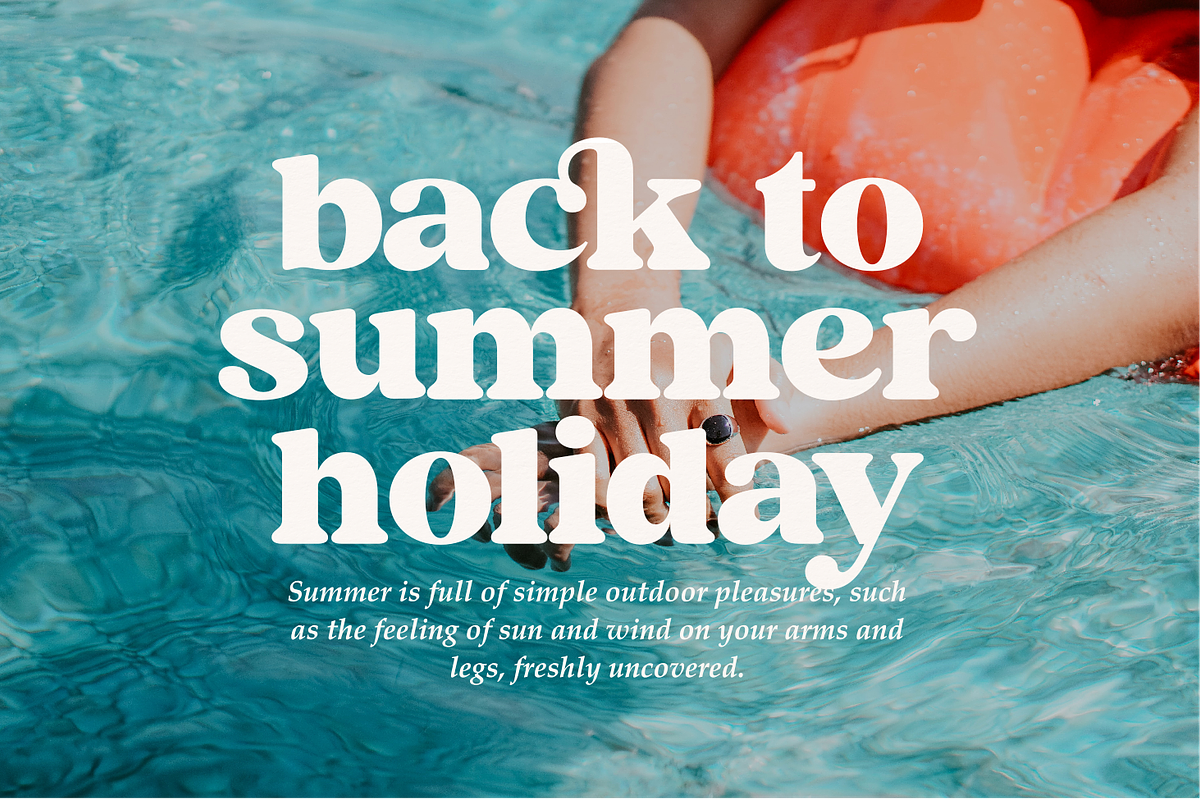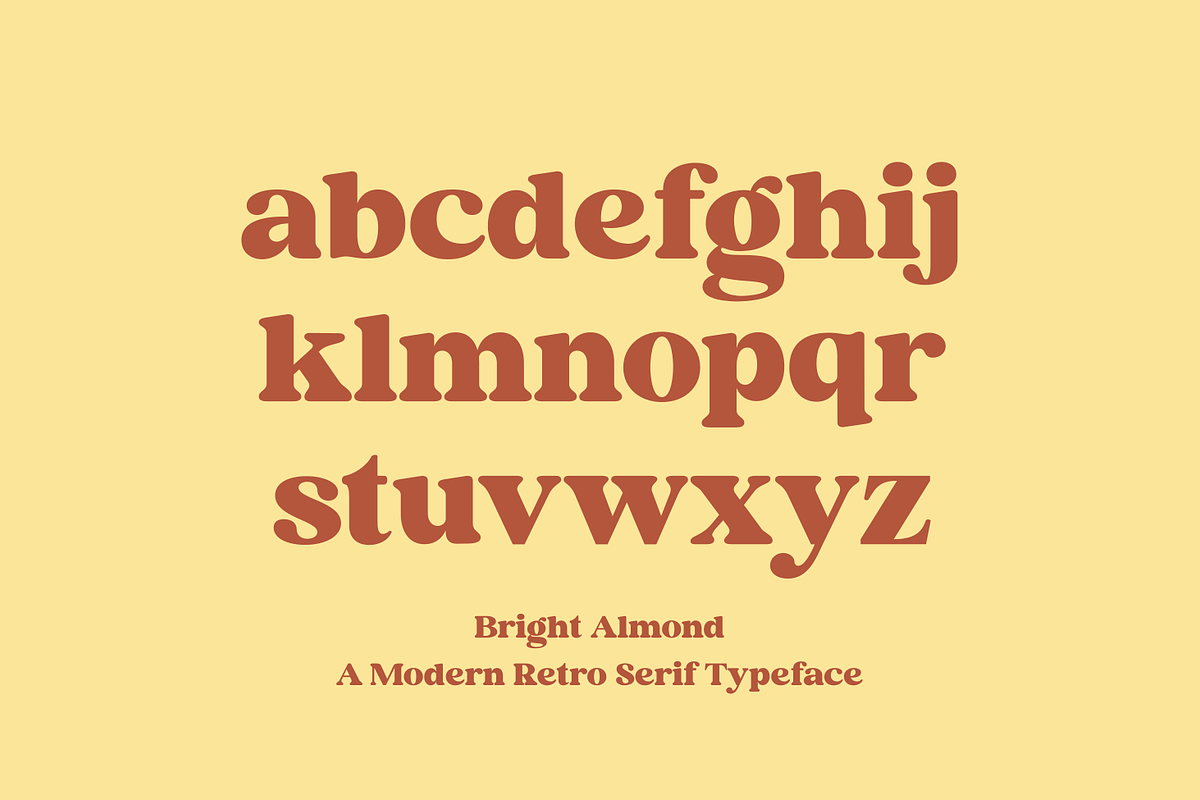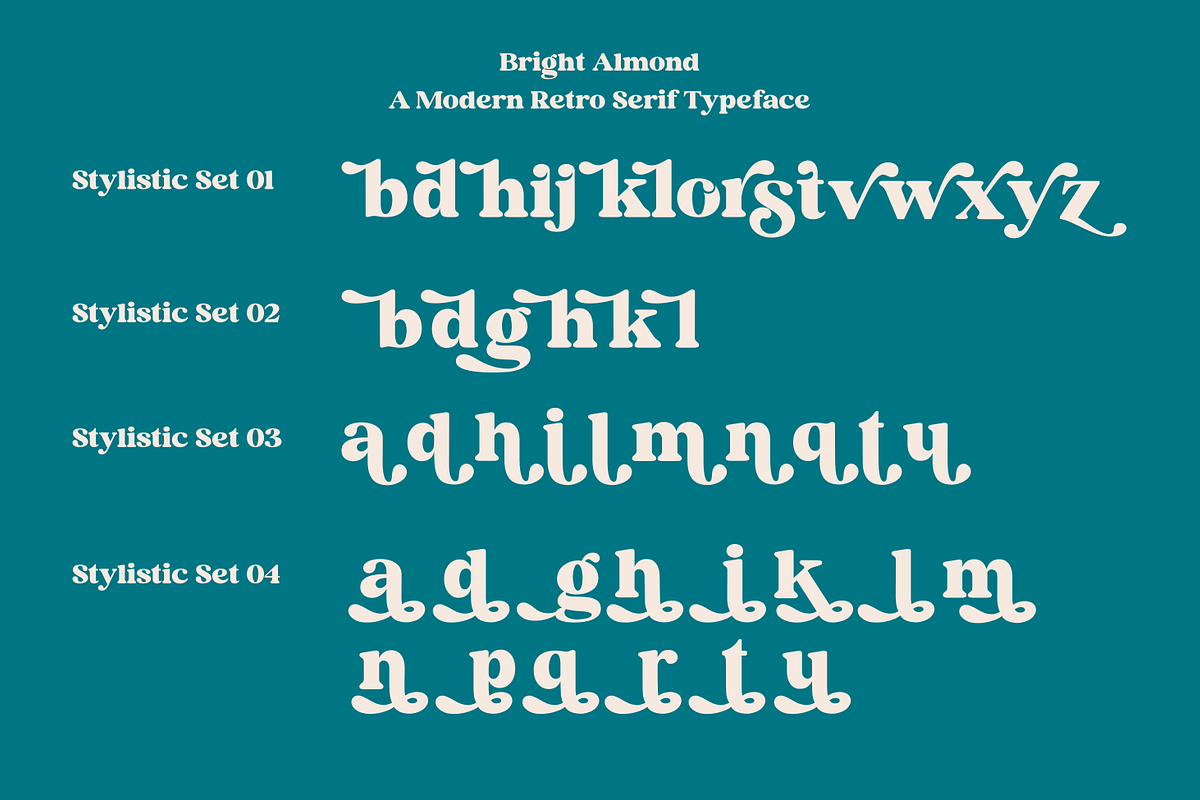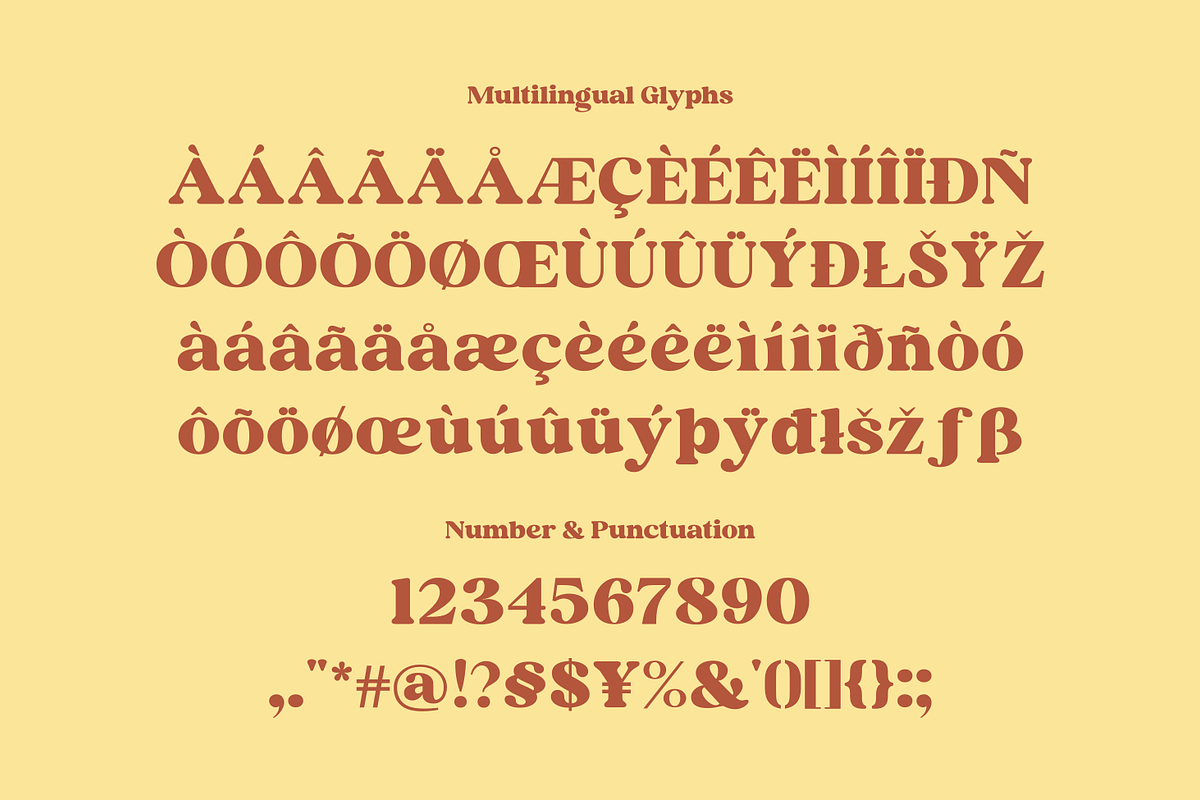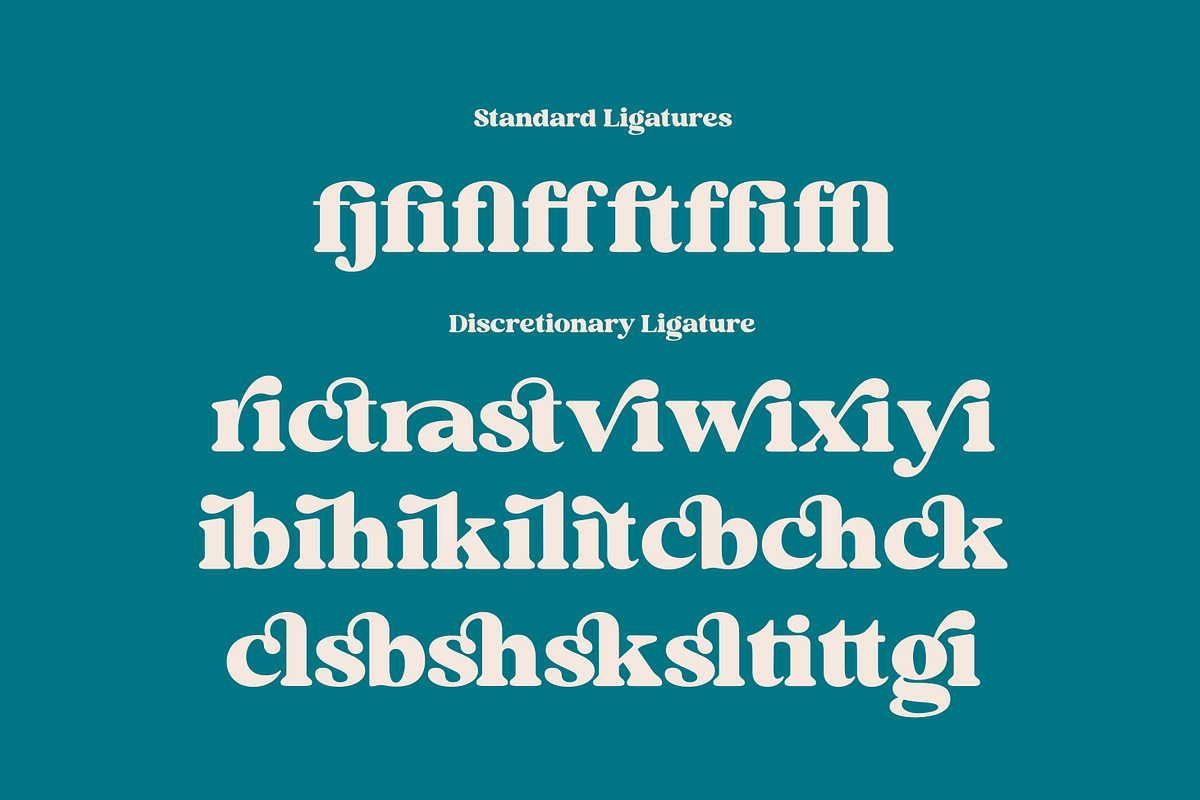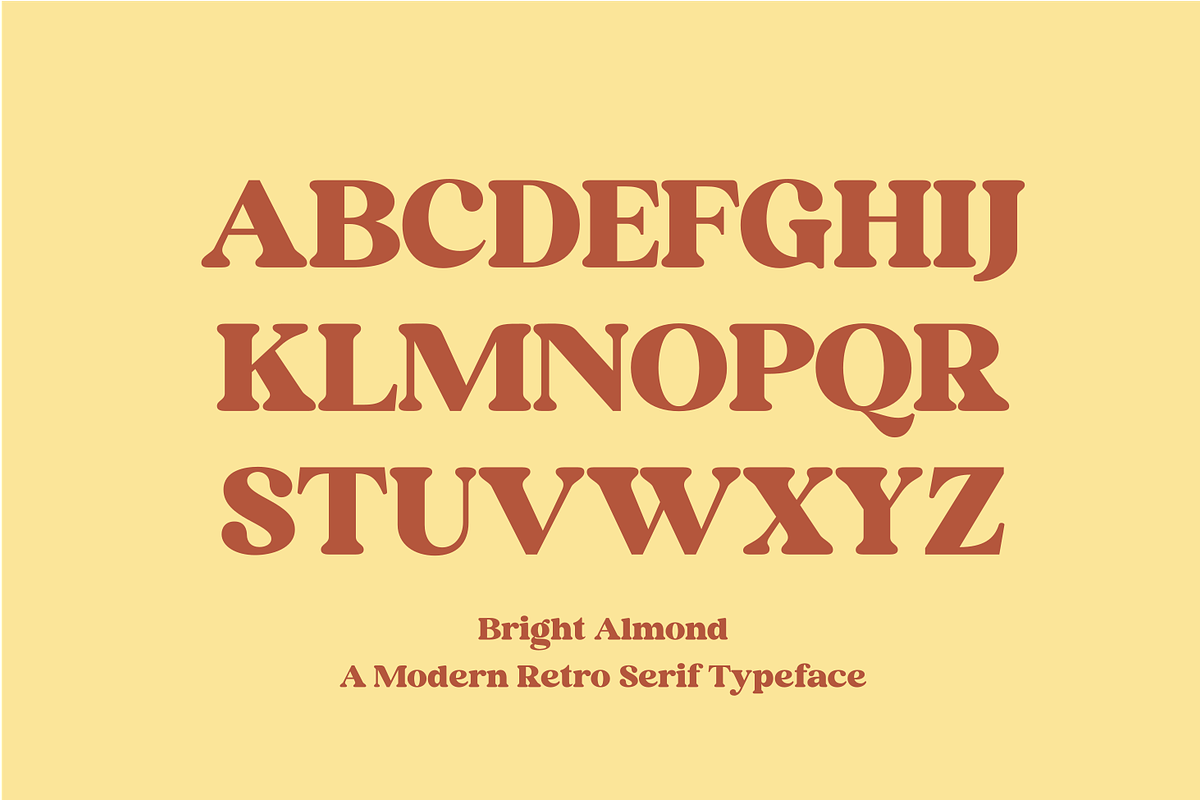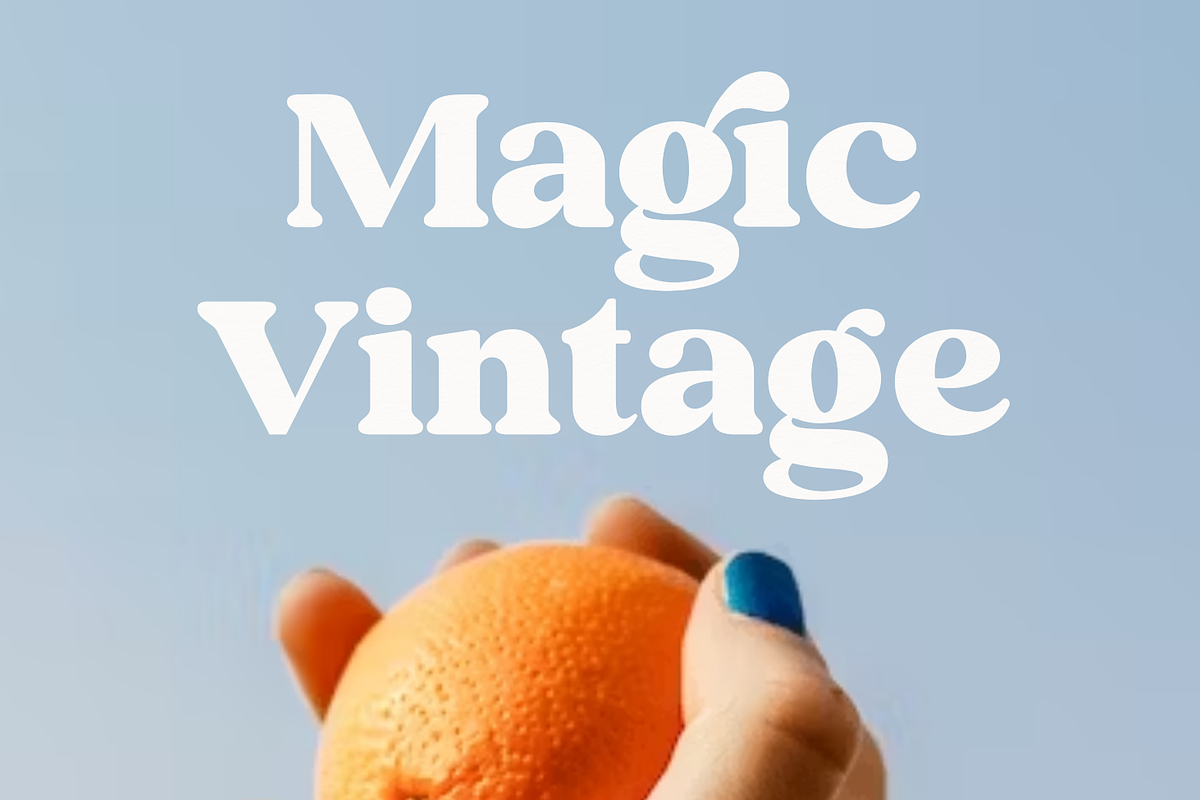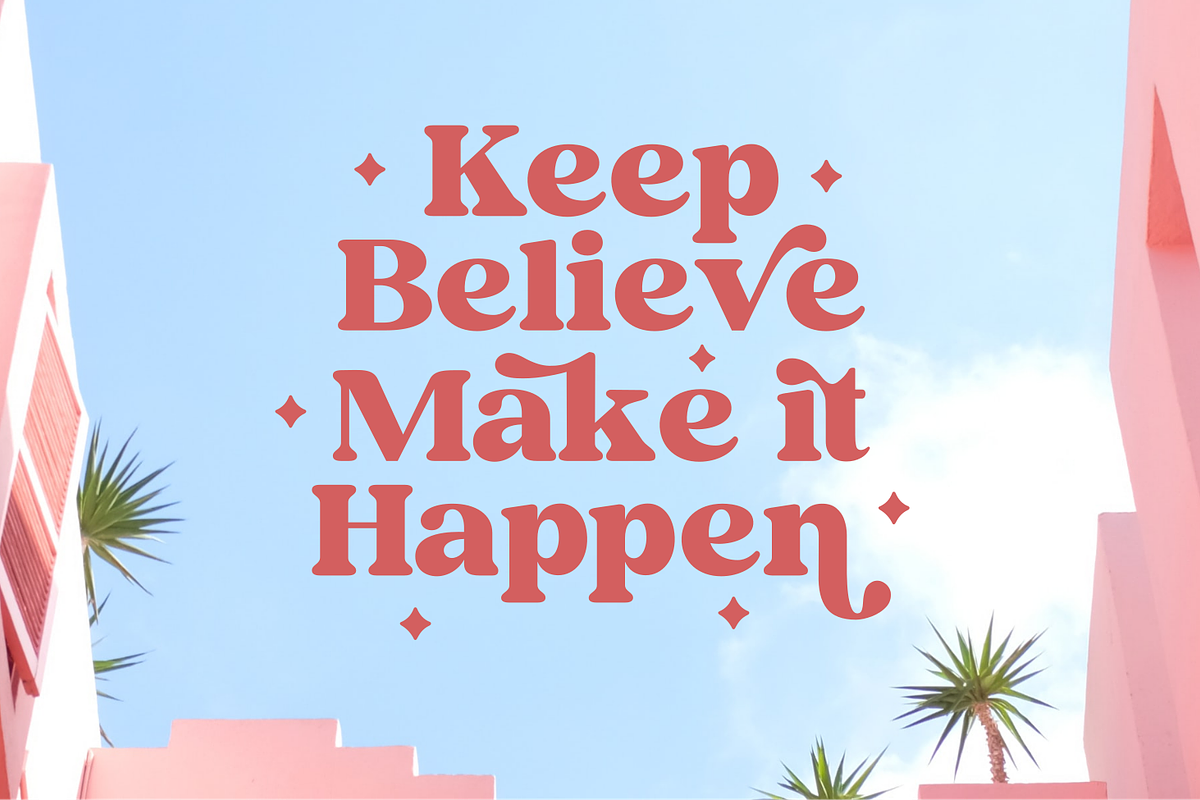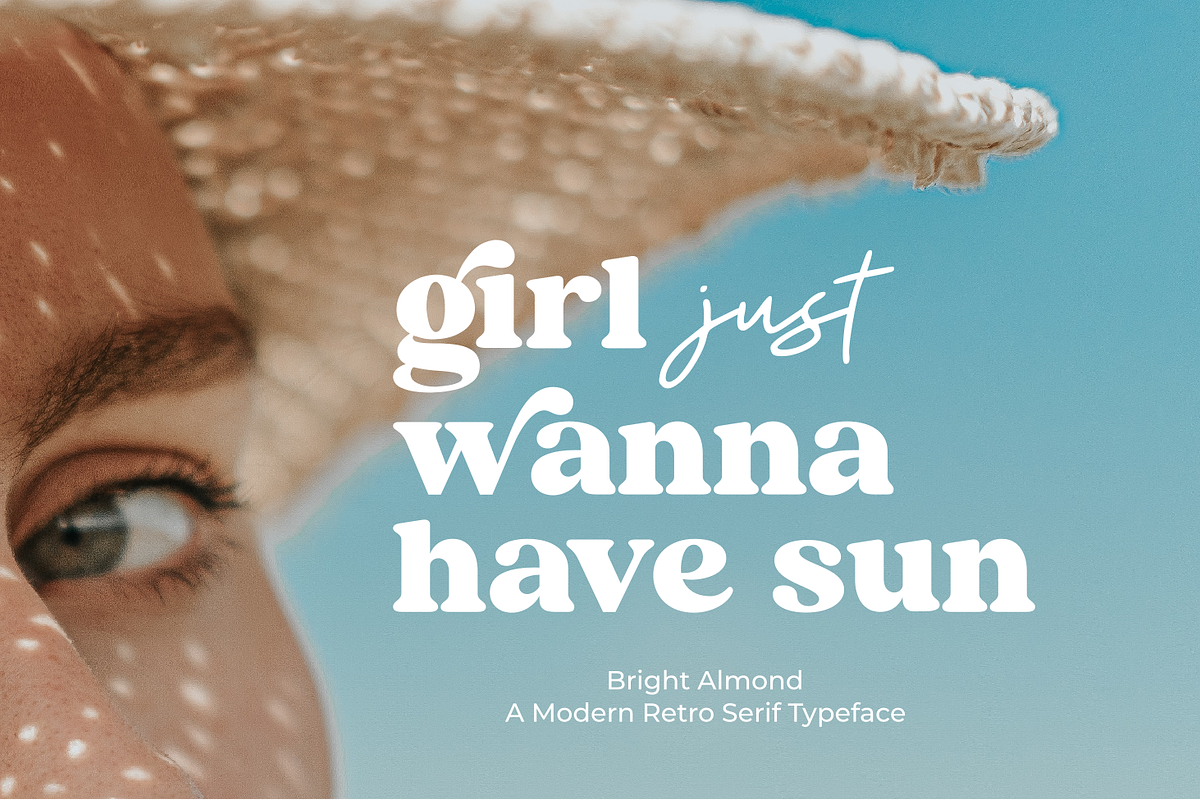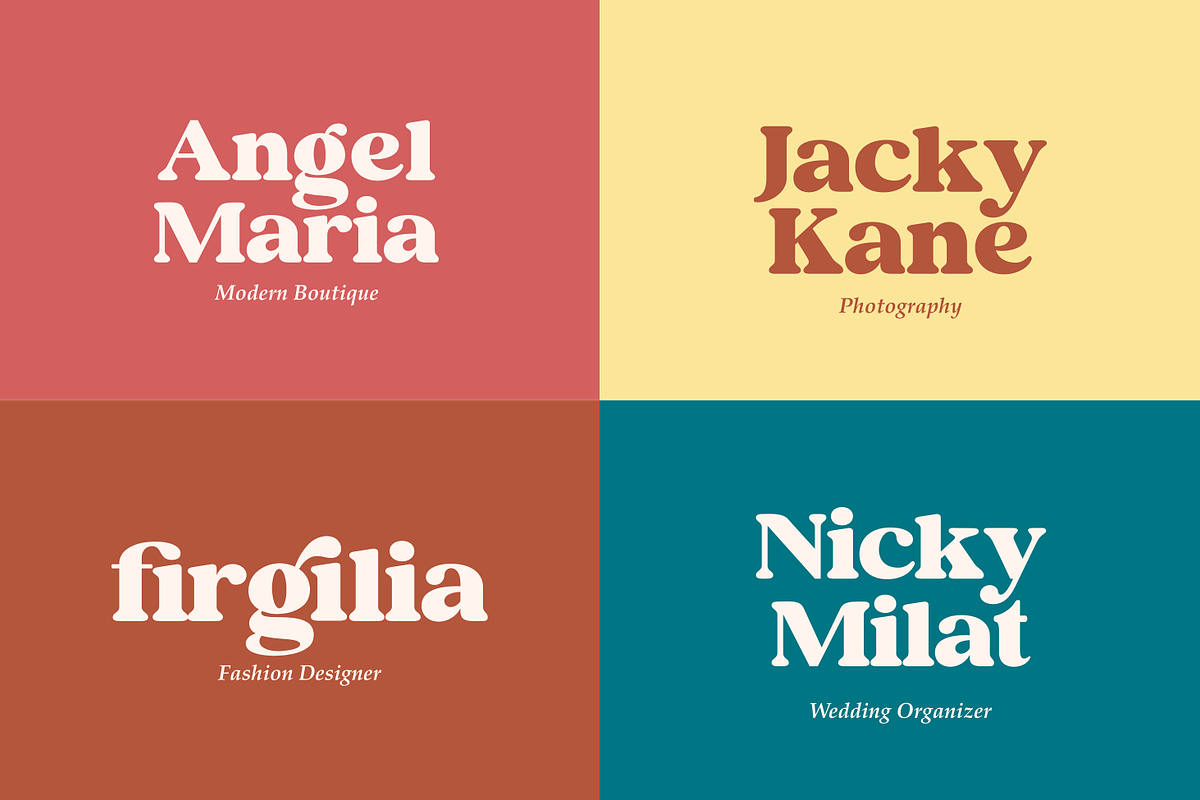
Bright Almond
Introducing Bright Almond is a modern and elegant serif font. Bright Almond is well-suited for advertising, branding, logotypes, packaging, titles, headlines and editorial design. I created more much alternates variant and much natural ligatures to make this font very classy and look so beauty. Bright Almond was built with open type features make your project will be perfect.